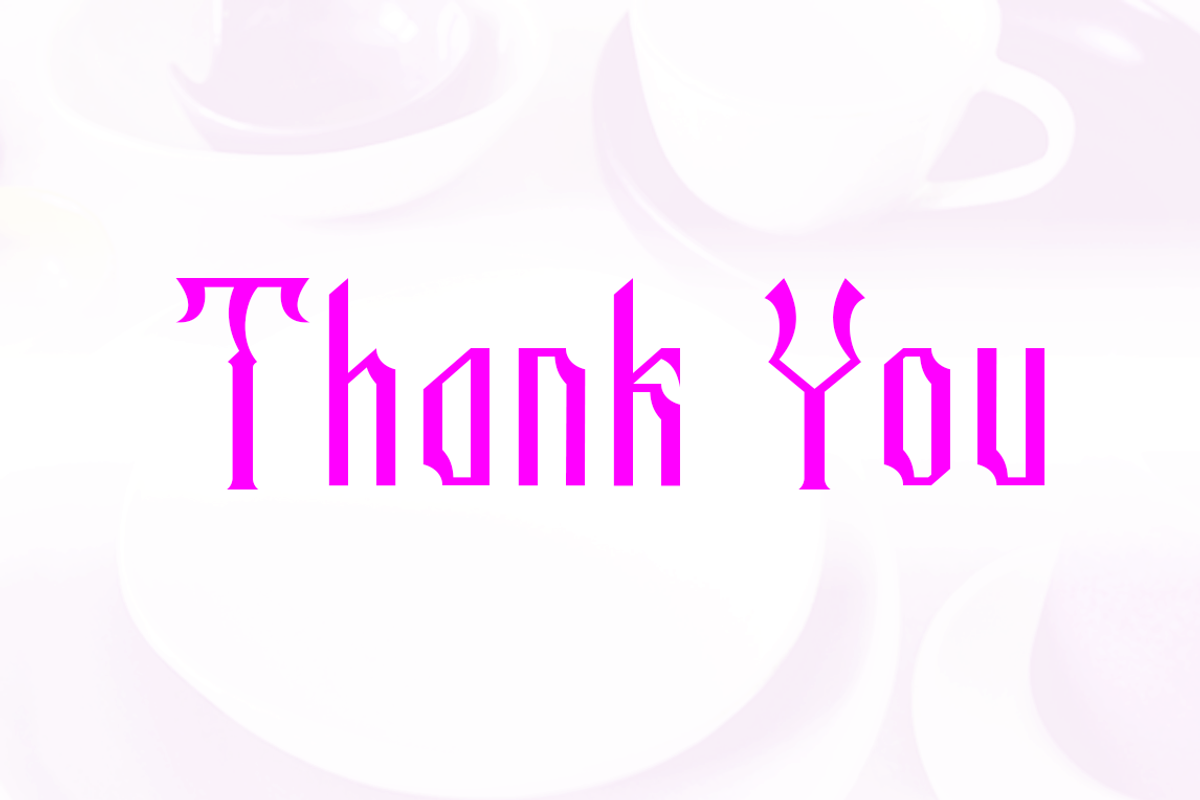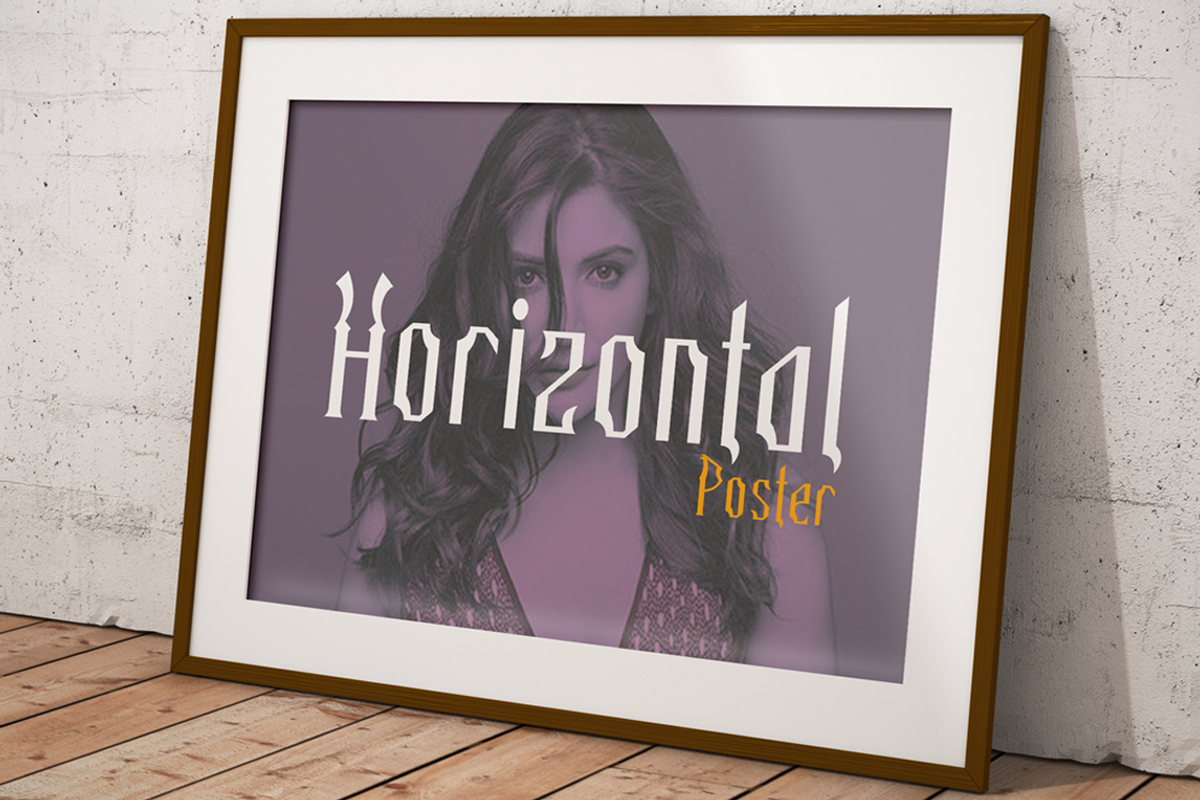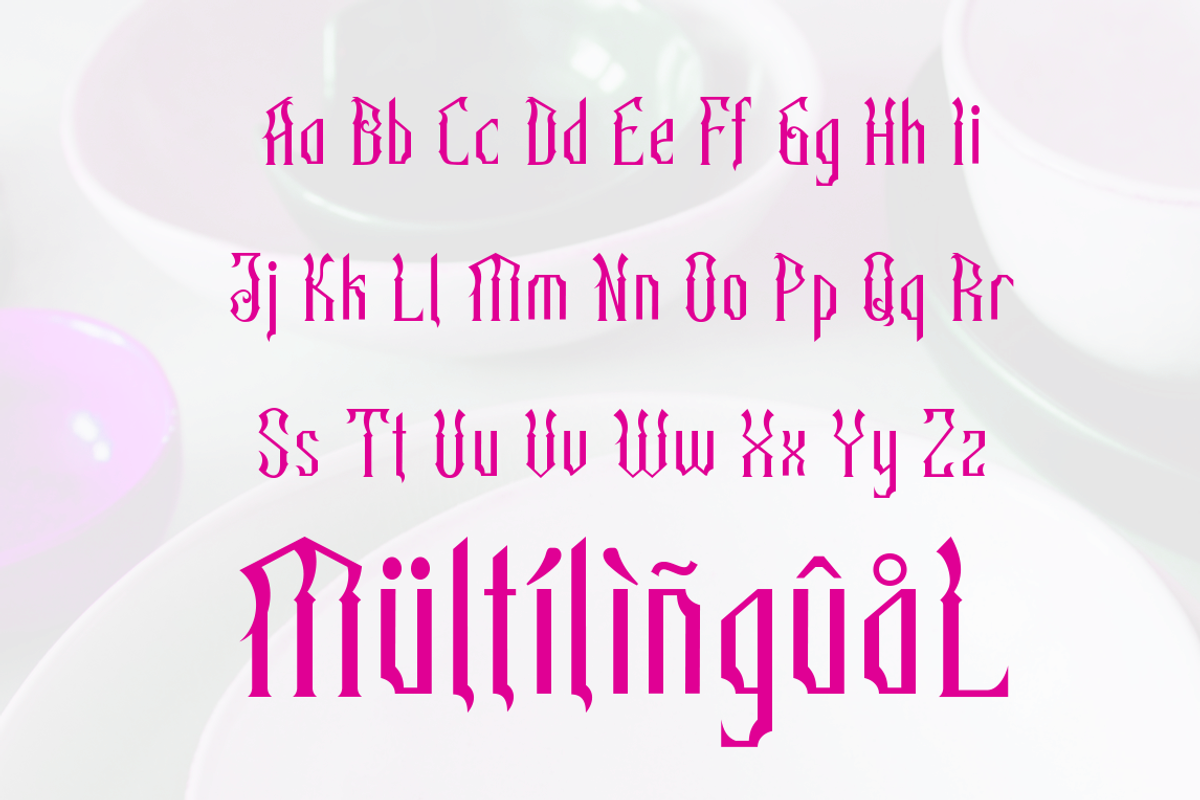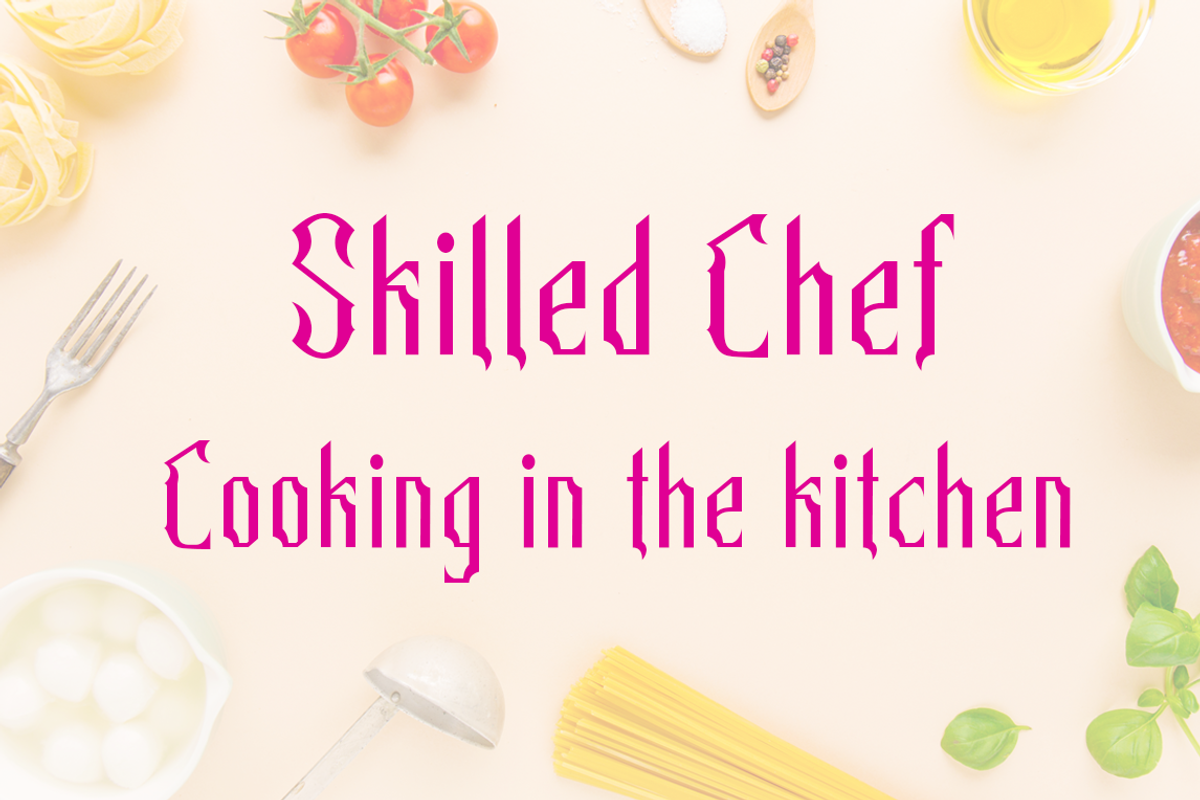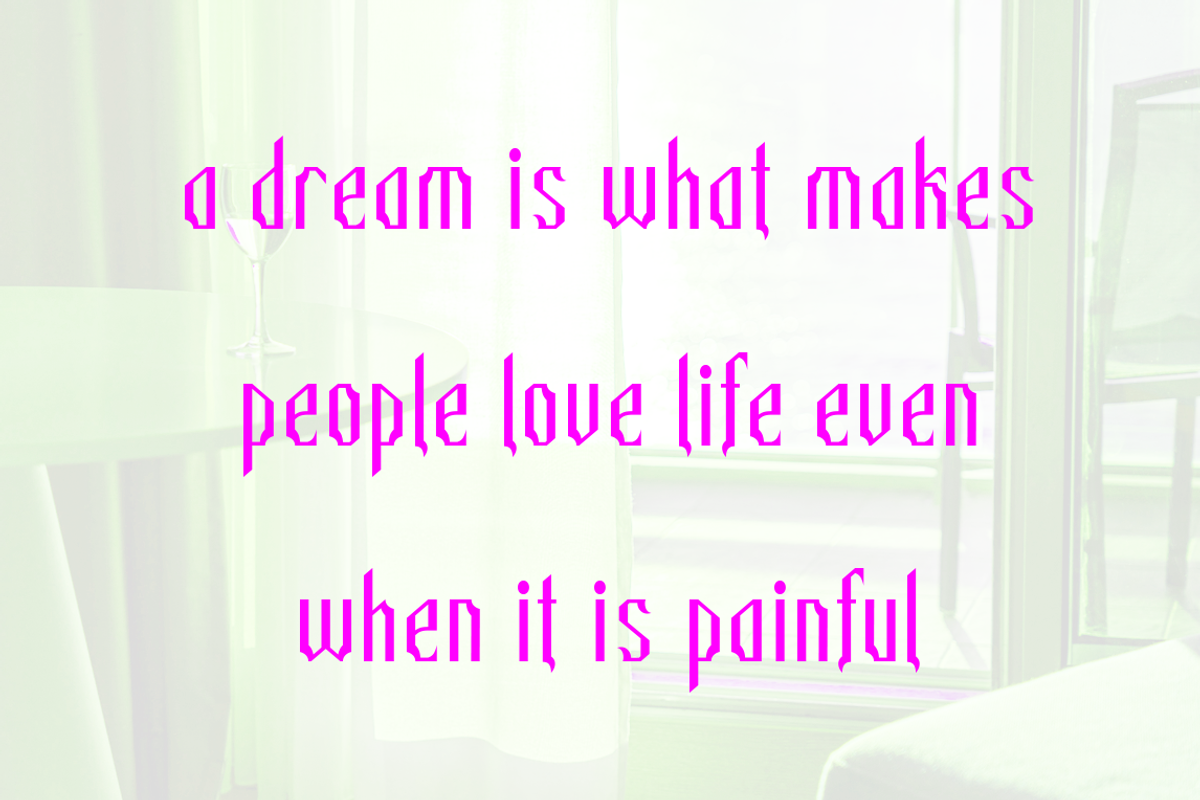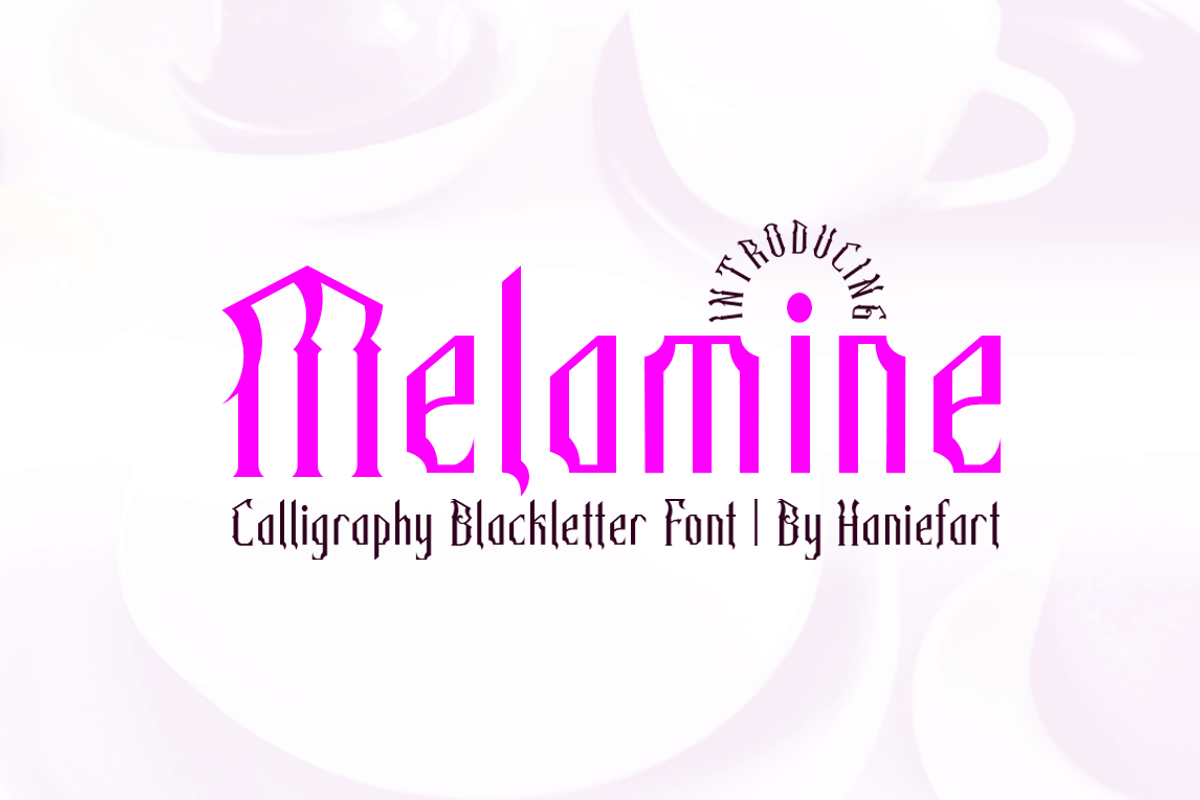
Melamine - Blackletter Font
Melamine is a handwritten font with blackletter style inspired by classic styles, deliberately made with different characteristics, so that it looks unique, beautiful, attractive and modern. Melamine can be used for company brands, logos, film titles, magazines, book covers and others.